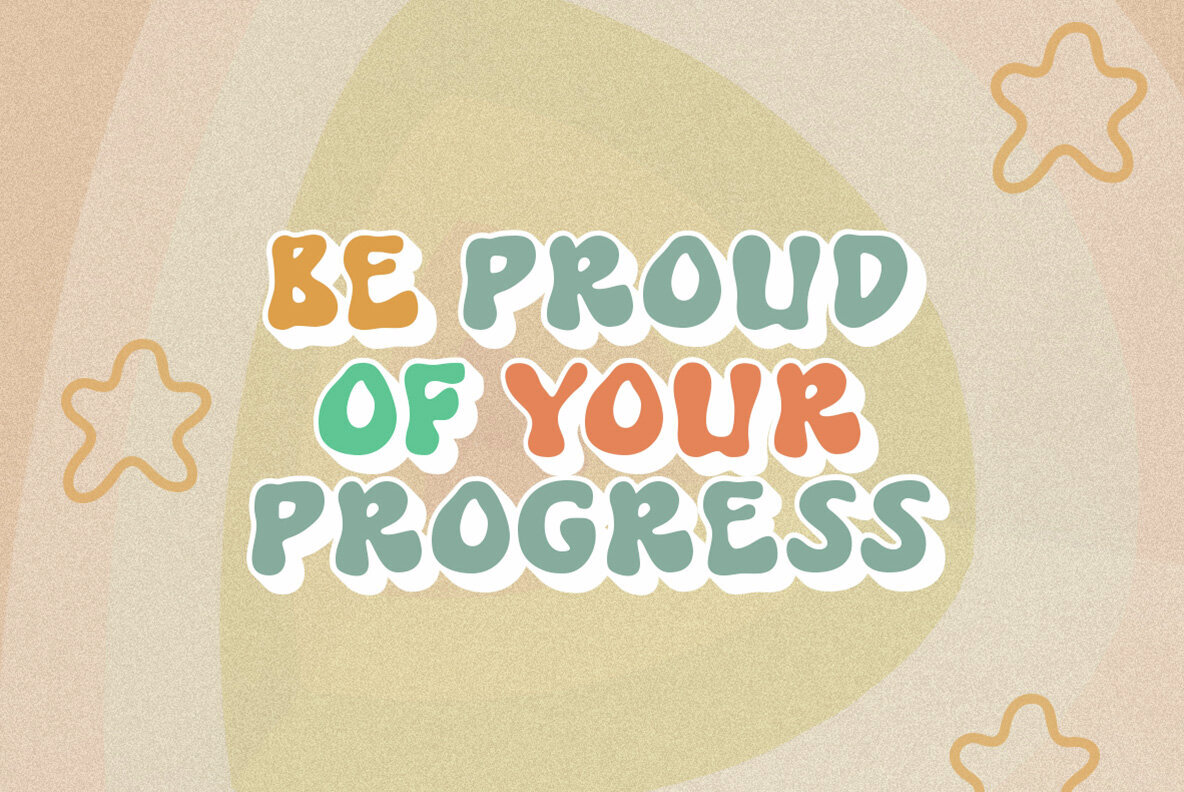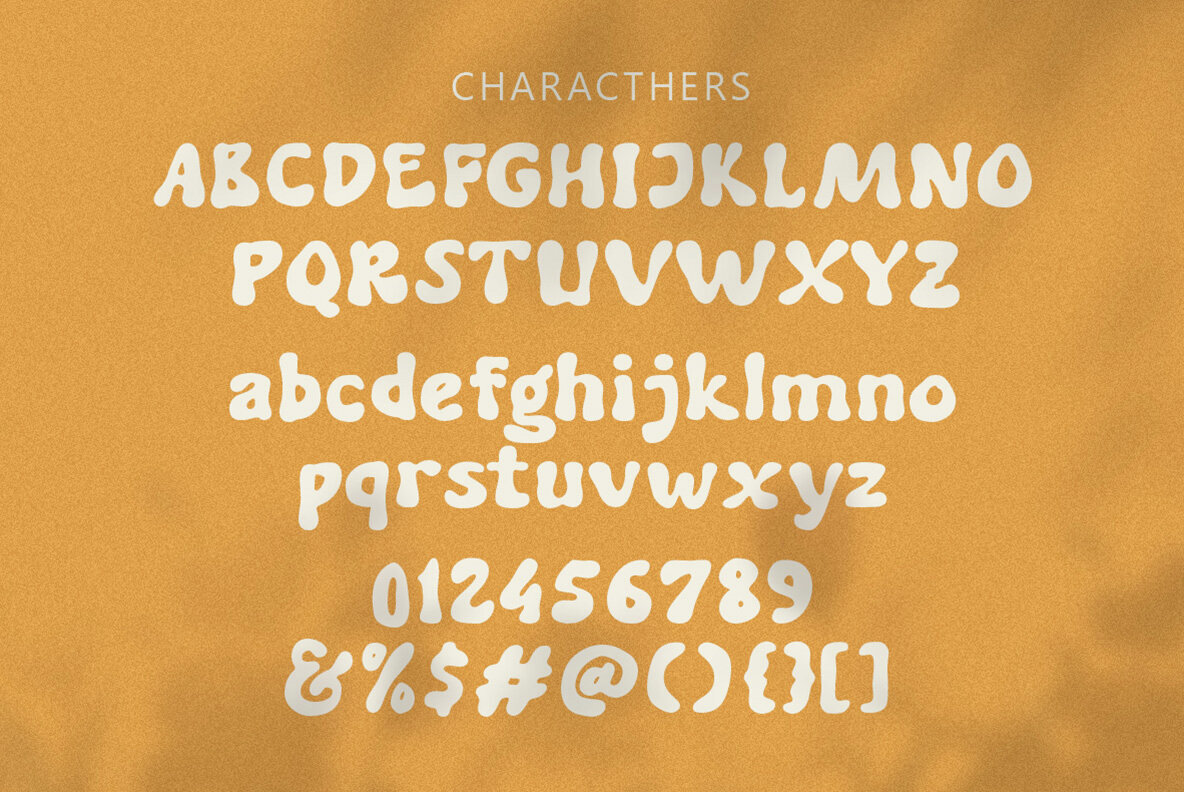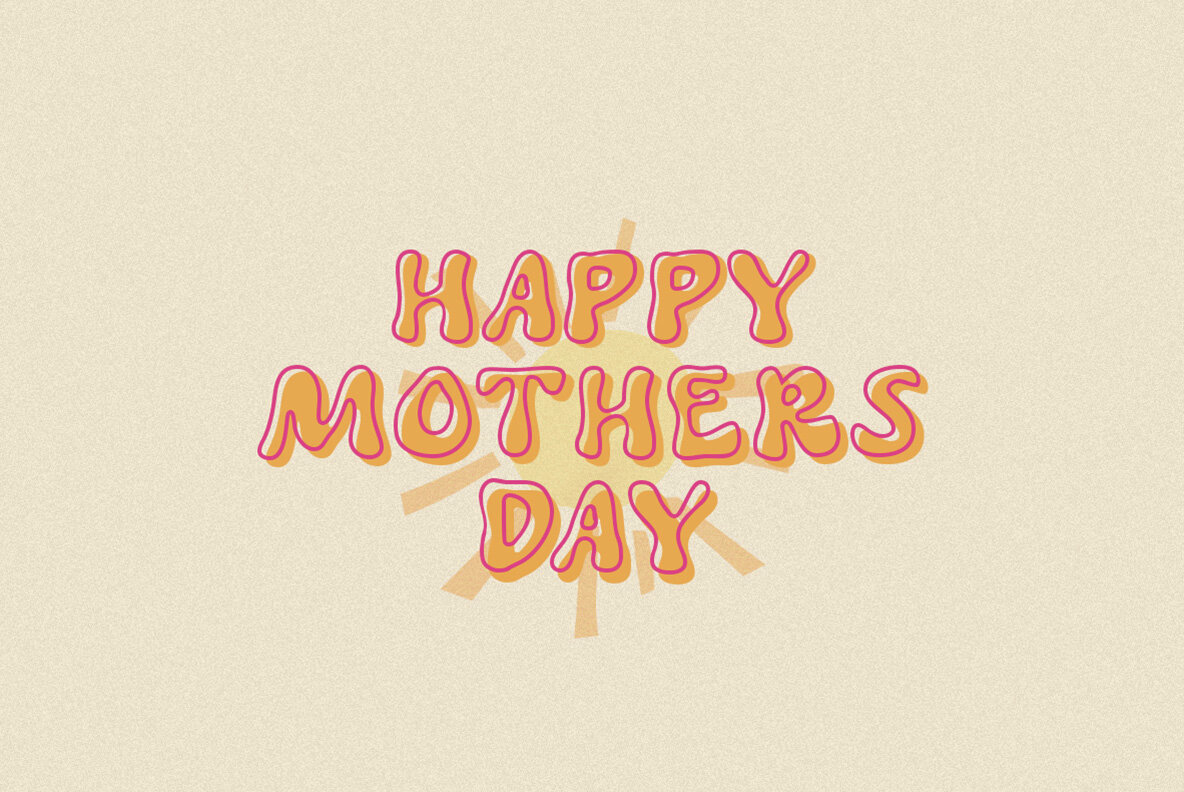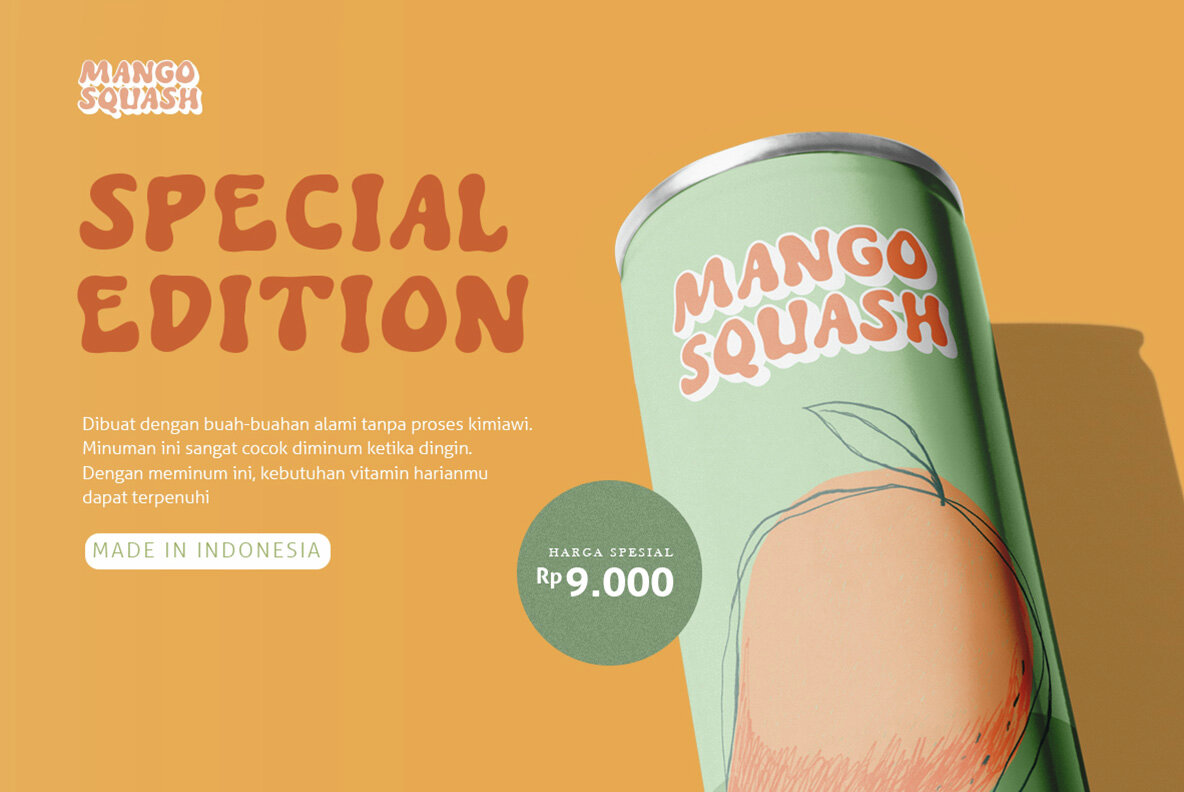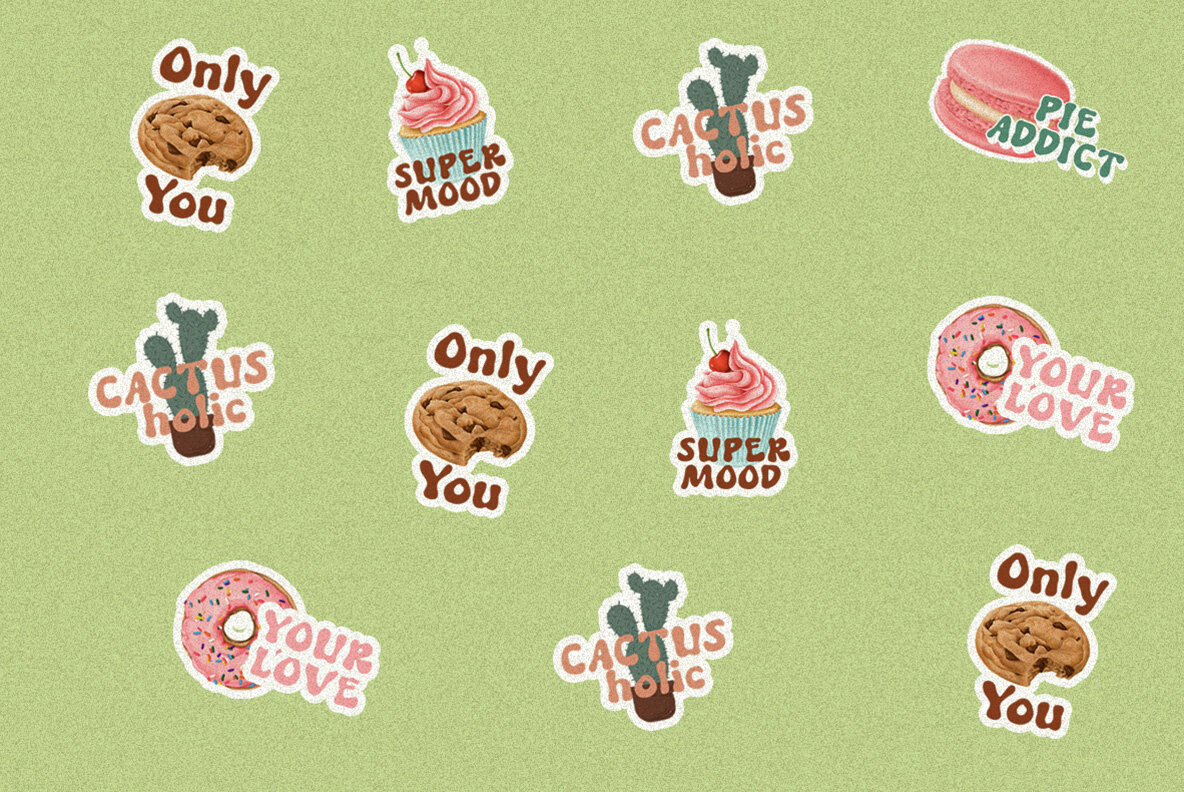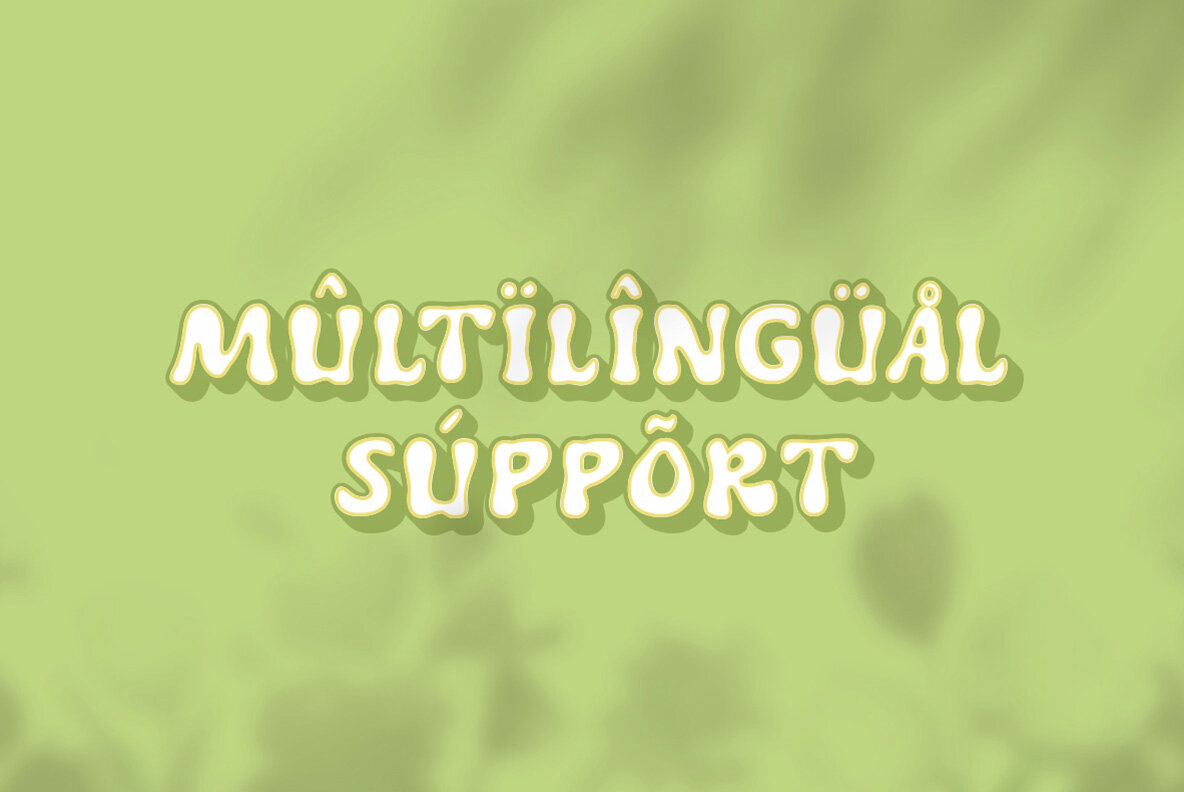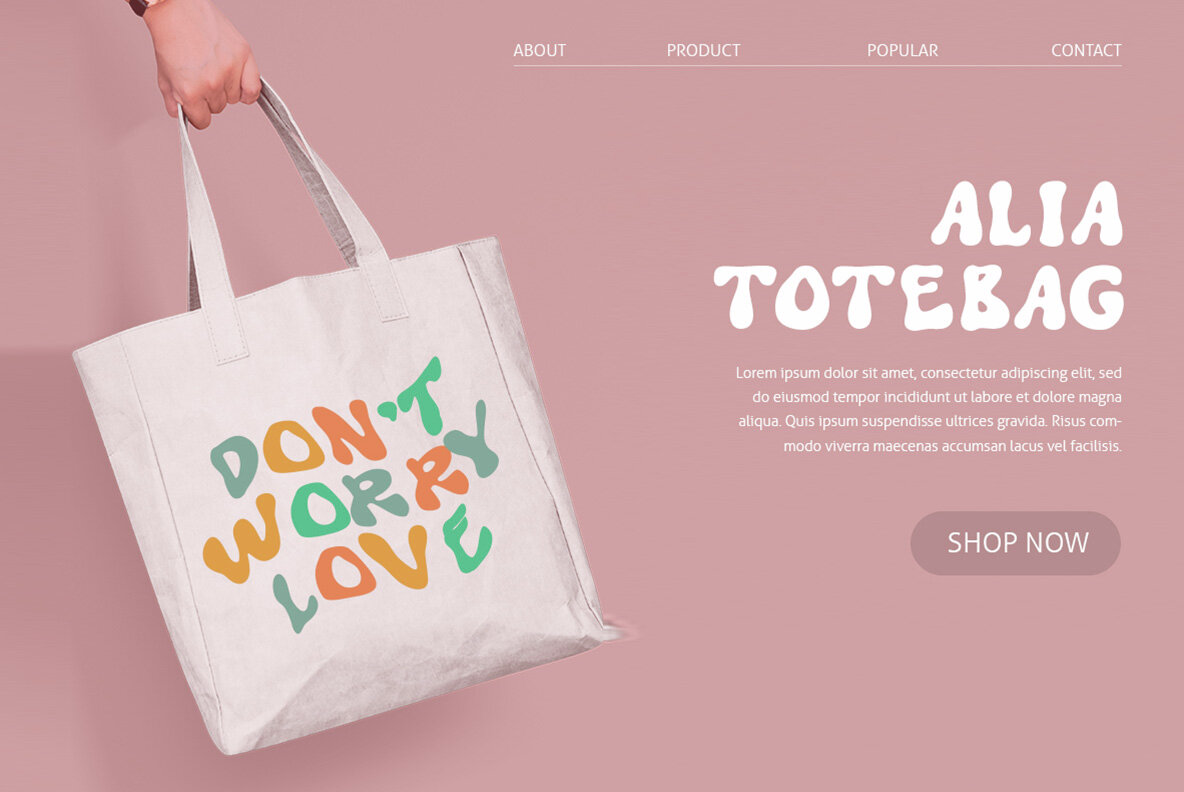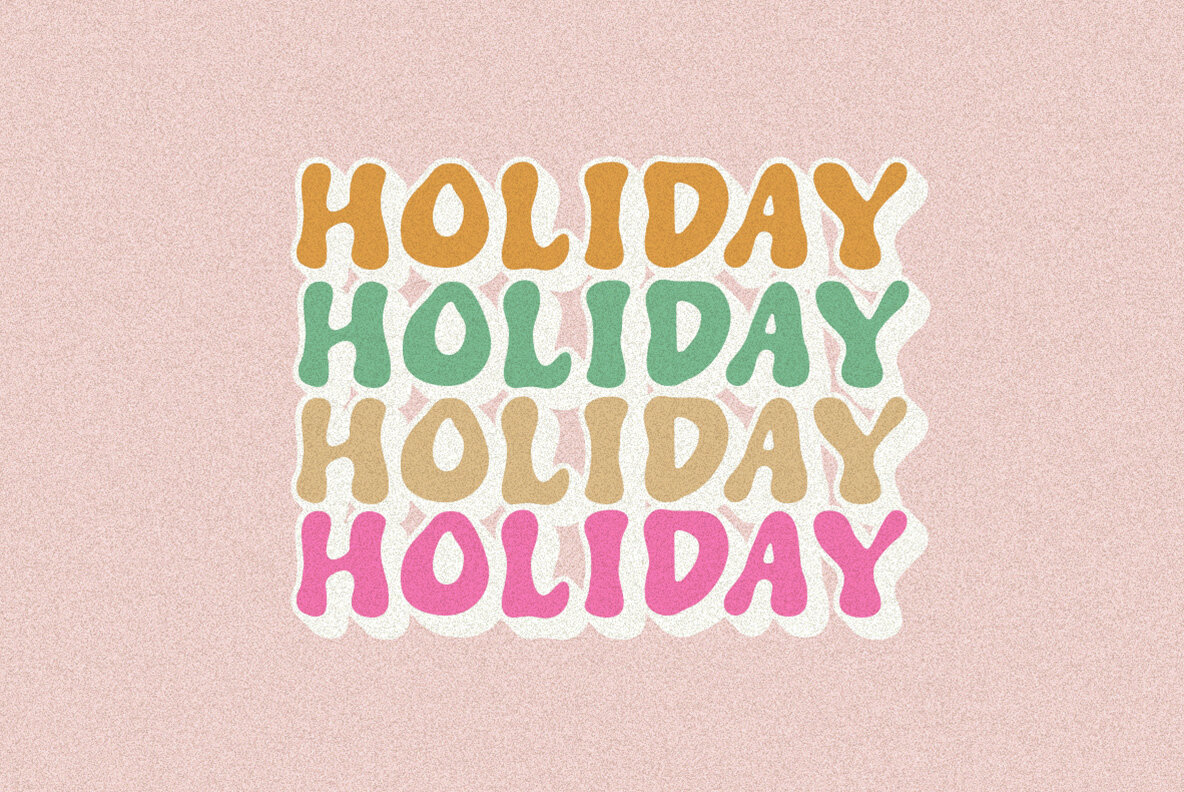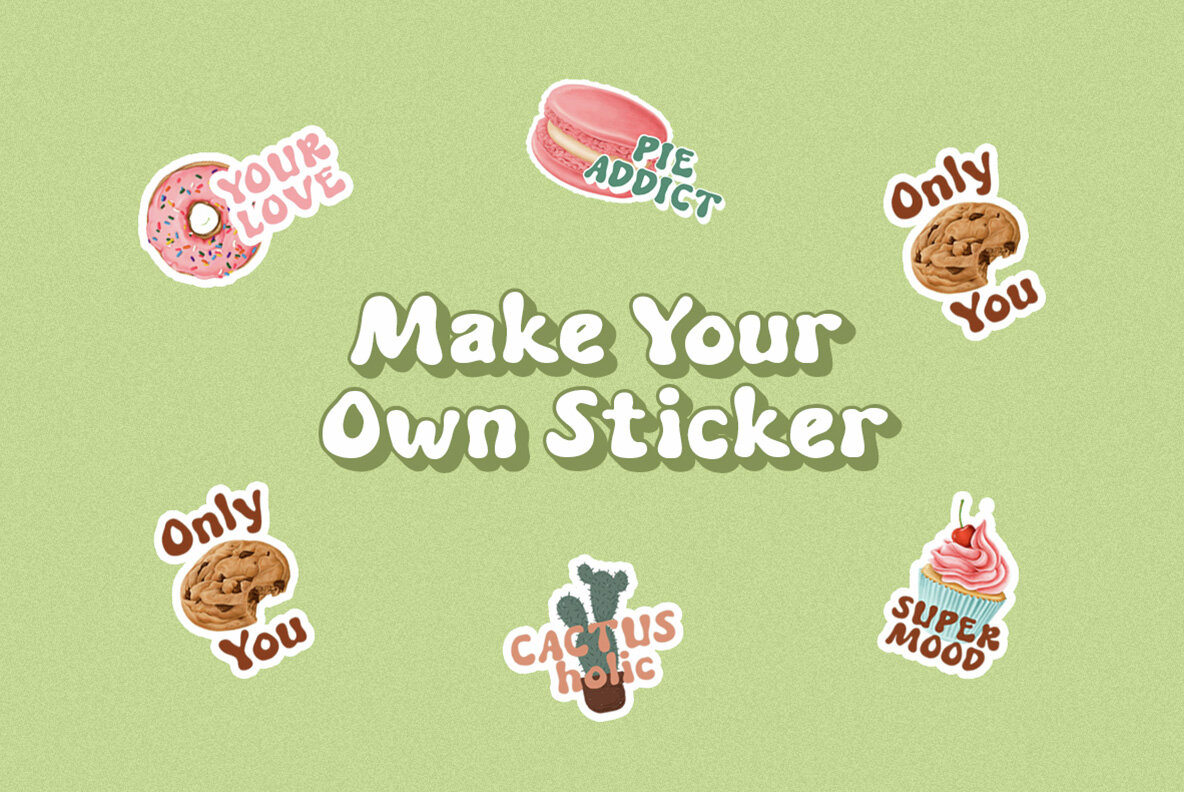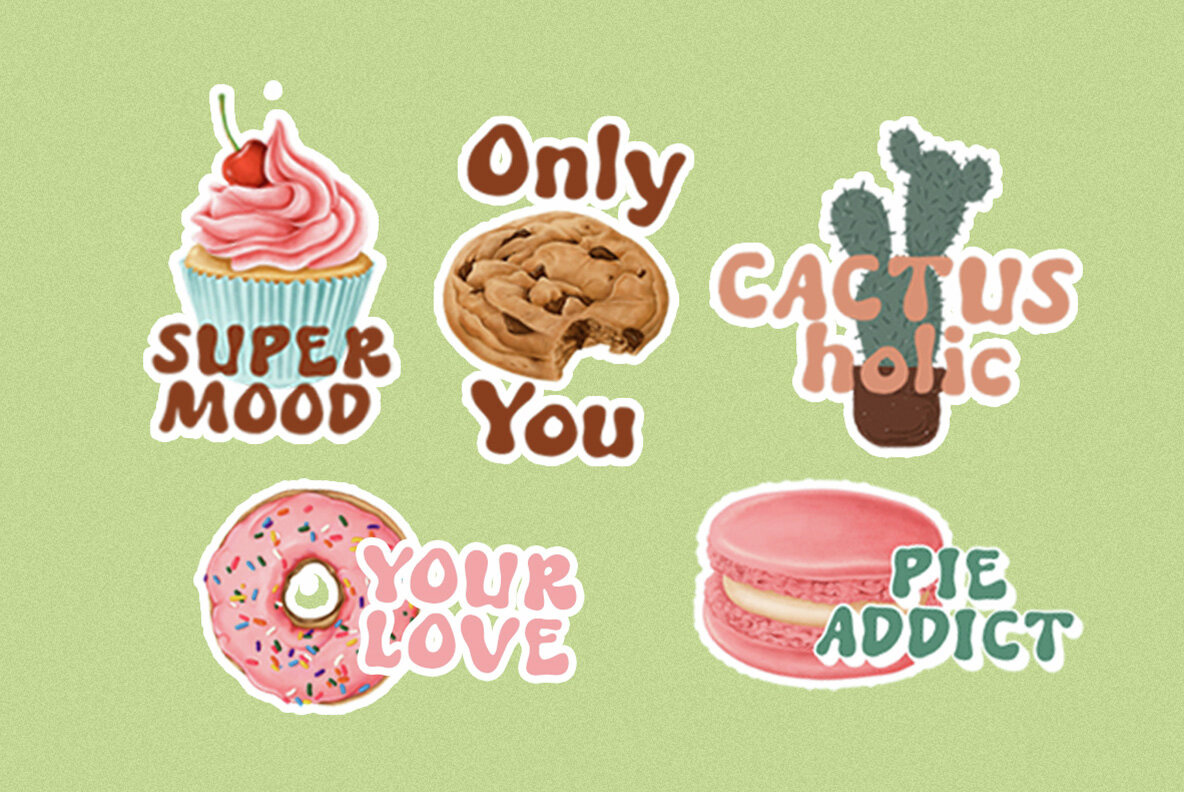
Grow Fine Font
Grow Fine is layered fonts that contains regular, outline and extrude. With combining three style, you can get 3D looks text. You can use this font for so many project, such as poster, t-shirt design, or project that needs retro vibes. This fonts also support multilingual.